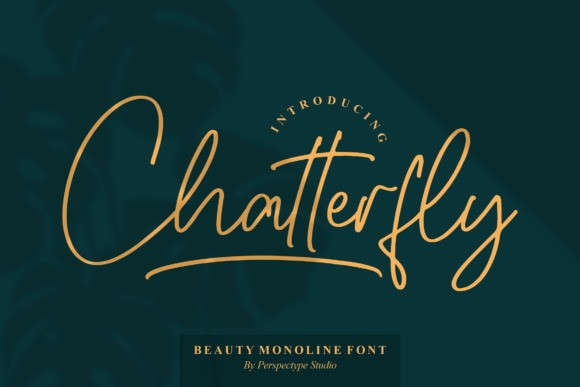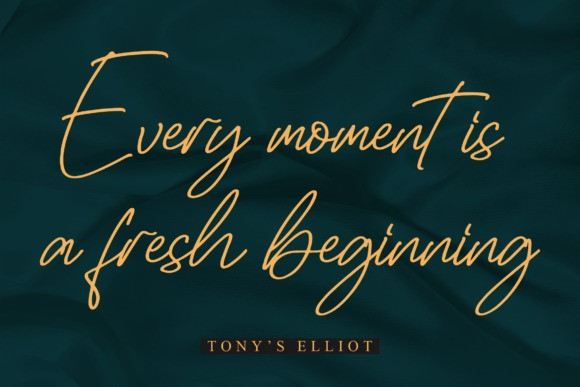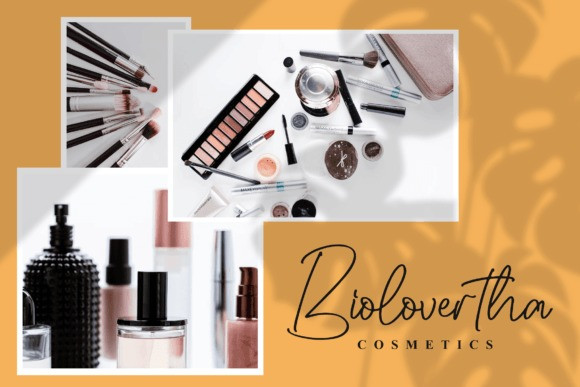
Chatterfly Font
Chatterfly is a beautiful monoline handwritten font suitable for any projects such as logos, branding projects, homeware designs, product packaging, mugs, quotes, posters, shopping bags, T-shirts, book covers, name cards, invitation cards, greeting cards, labels, photography, watermark, special events, and all your other lovely projects that need a beautiful script touch.